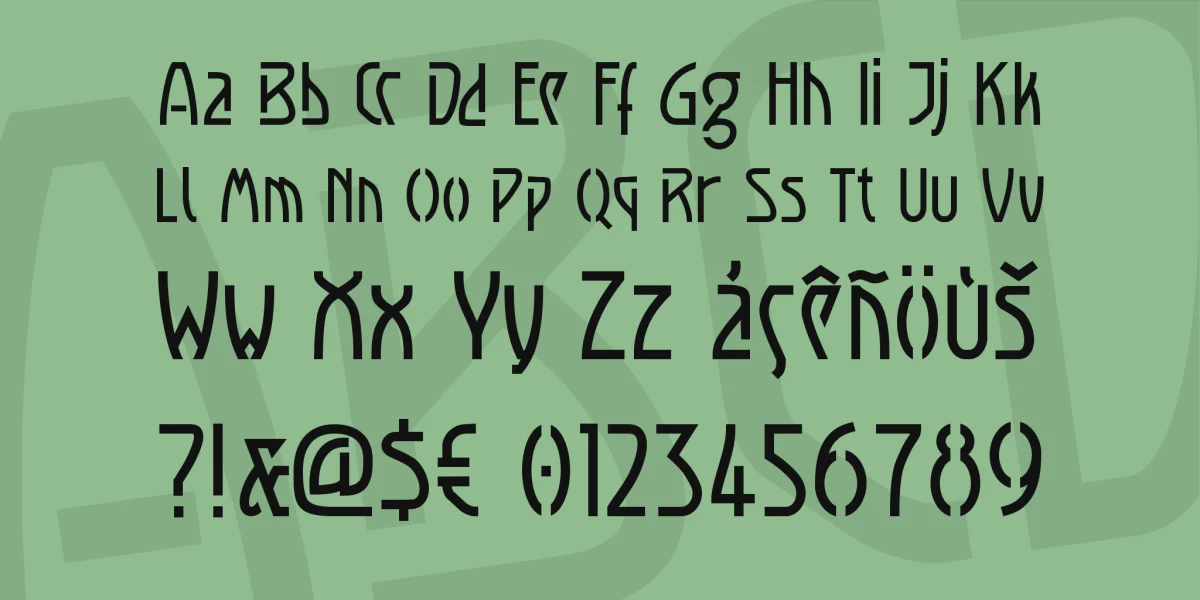
By 1910, they were very popular: Small cabinet with ceramic sliding store, where as all sorts of "solids" in the kitchen could be kept handy. There were flour, salt, pasta, rice, coffee to find it, but also more exotic things like fig coffee and crumbs. Virtually the small image of the merchant shop. Sometimes you get lucky and get hold of a pharmacist-cabinet with enamel signs or a drawer cabinet from the mom-and-pop shop. If it works, a few well-preserved ceramic inserts are also available. To make something special out of this piece of furniture, it might be integrated into the kitchen or the dining area, you can these bays when they are unlabeled, now equipped with the beautiful Art Nouveau font Luxembourg. For each printer are suitable transparent adhesive films. So you sit down, the modern computer workstation, with a good coffee from the coffee machine and floats in nostalgia. Also you can stick anything in addition very good glass container with the printed film. The capital letters are so similar to my Elbe Tunnel of ceramic abgeguckt, this time a stencil font in strict Jugendstil forms. I have taken the liberty to invent suitable add the lowercase letters and the Cyrillic alphabet. Also to be found in Scripture, various ligatures (including unusual as EI but also long and round s The download contains in addition to the normal font and the shadow of a detailed occupancy table.